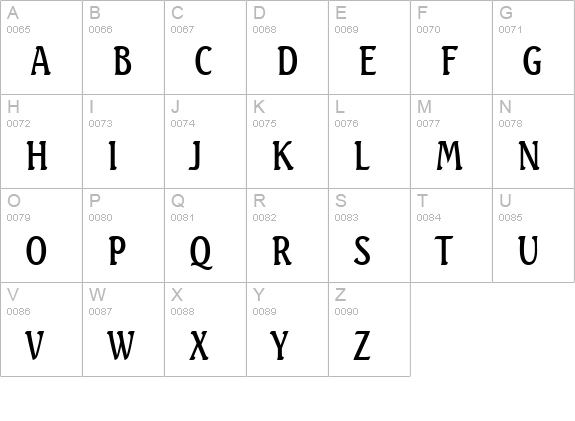
BeachCondensed Normal Font Details
BeachCondensed Normal is the standard, neutral variant in the BeachCondensed typeface family \xE2\x80\x94 well suited to general body text, paragraphs, and standard typographic work.
BeachCondensed Normal font is a sleek and modern typeface that exudes a sense of sophistication and elegance. Its clean lines and condensed letterforms make it perfect for a wide range of design projects, from branding to editorial design. This versatile font is ideal for creating eye-catching headlines, logos, and signage that demand attention. Best of all, BeachCondensed Normal font is available for free download at FontsMarket.com. Whether you're a professional designer looking to add a new font to your collection or a hobbyist in search of the perfect typeface for your next project, this font is sure to impress. Don't miss out on this opportunity to elevate your designs with BeachCondensed Normal font - download it today and see the difference it can make!